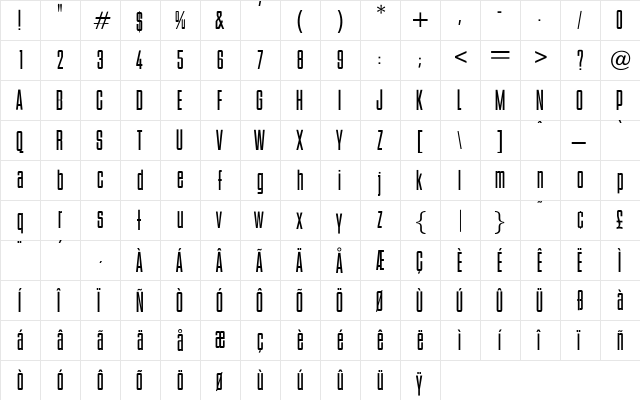
OPTIBinderStyle Medium
Design Context for OPTIBinderStyle Typeface
OPTIBinderStyle offers clean, dependable letterforms without strong stylistic allegiance, making it a practical choice for designers who need flexibility.